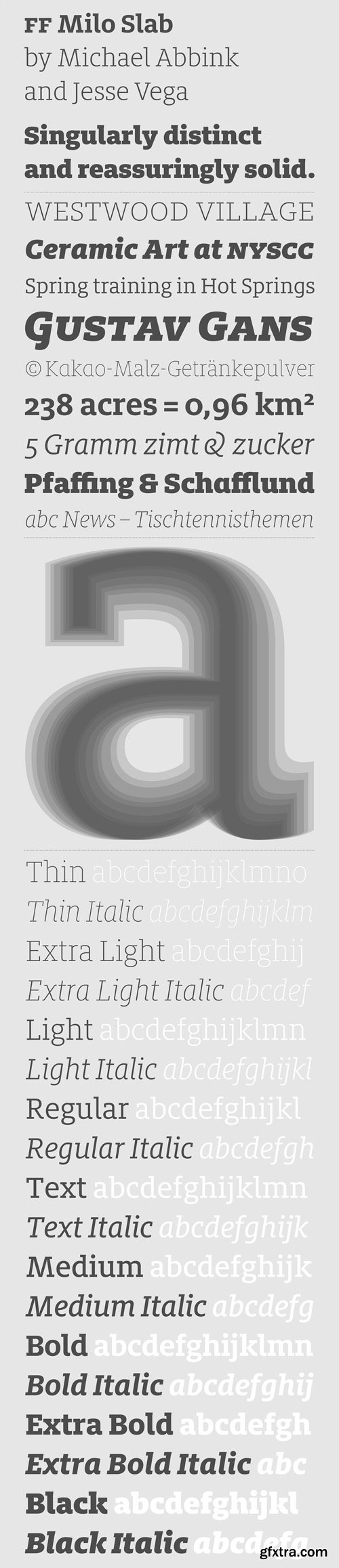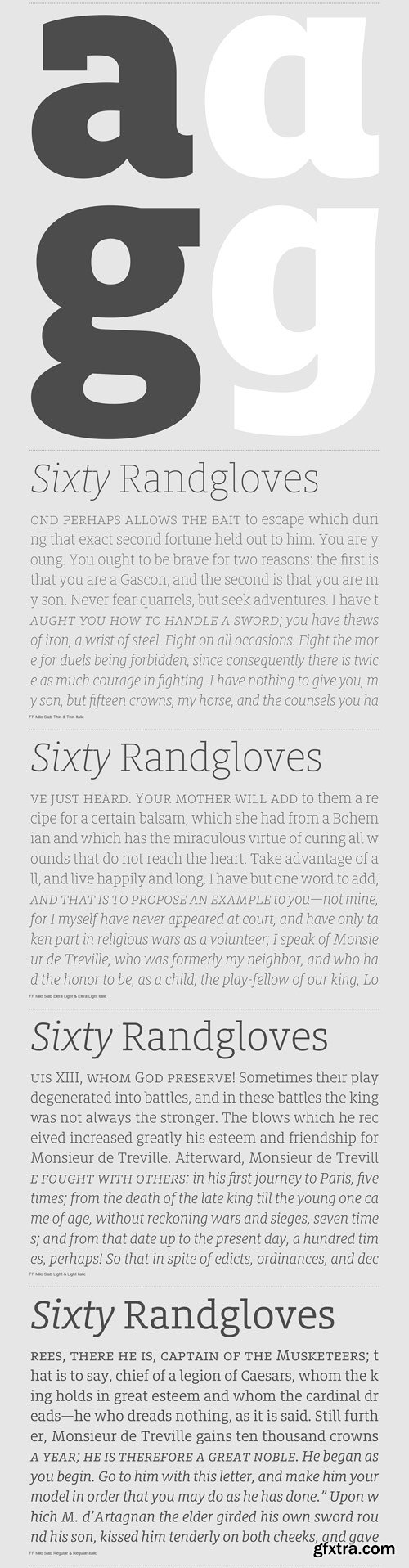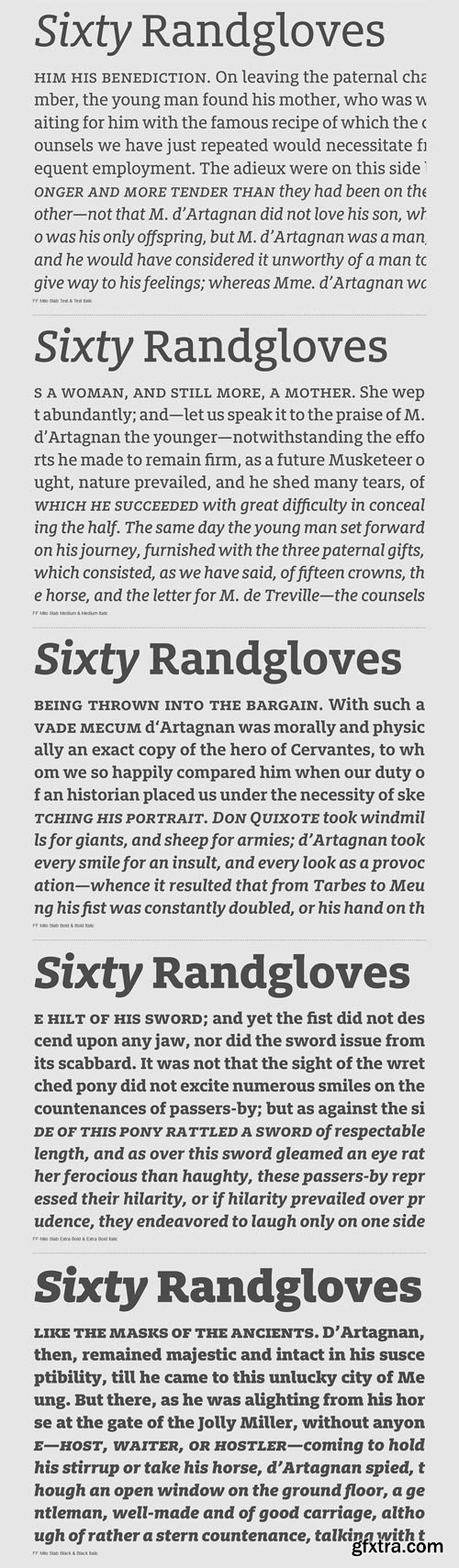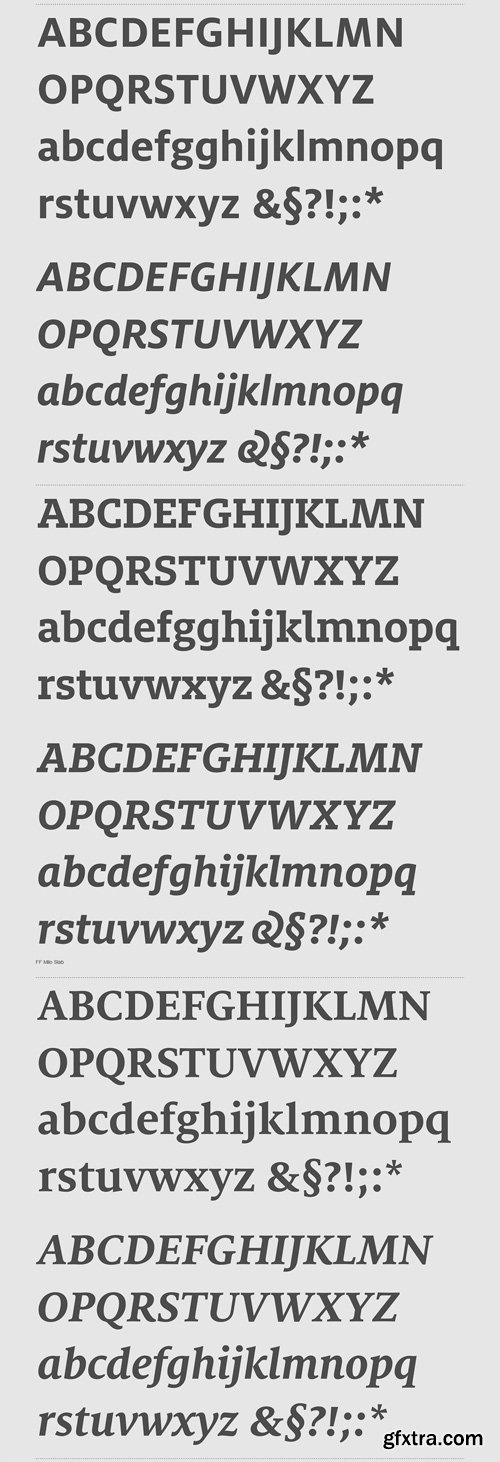
- FF Milo Slab is not just the sans with slabs attached. It has undergone a wide range of careful adjustments from increased contrast, longer ascenders and descenders and modified glyphs in the heavier weights. All these changes amount a typeface that feels enough like Milo but also can stand on its own as a new and fresh typeface.